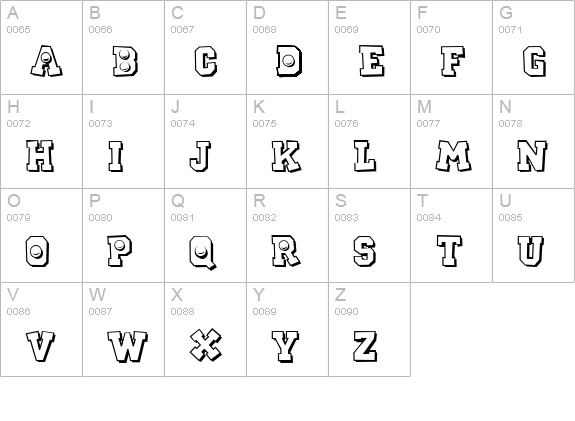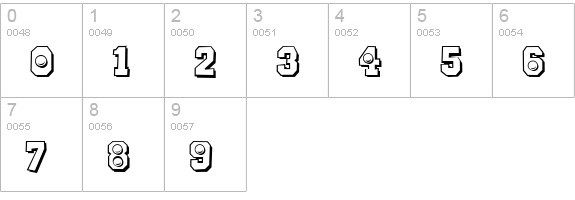
CK Sports Plain Font Details
Introducing CK Sports Plain font, a sleek and modern typeface perfect for all your sports-related design projects. With its clean lines and bold aesthetic, this font exudes power and dynamism, making it ideal for posters, banners, and branding materials. The CK Sports Plain font is versatile and can be used for a wide range of applications, from apparel design to website headers. What sets this font apart is that it is available for free download at FontsMarket.com. Yes, you read that right - you can access this premium font without any cost! So don't miss out on the opportunity to elevate your designs with the CK Sports Plain font. Download it today and unleash your creativity like never before!